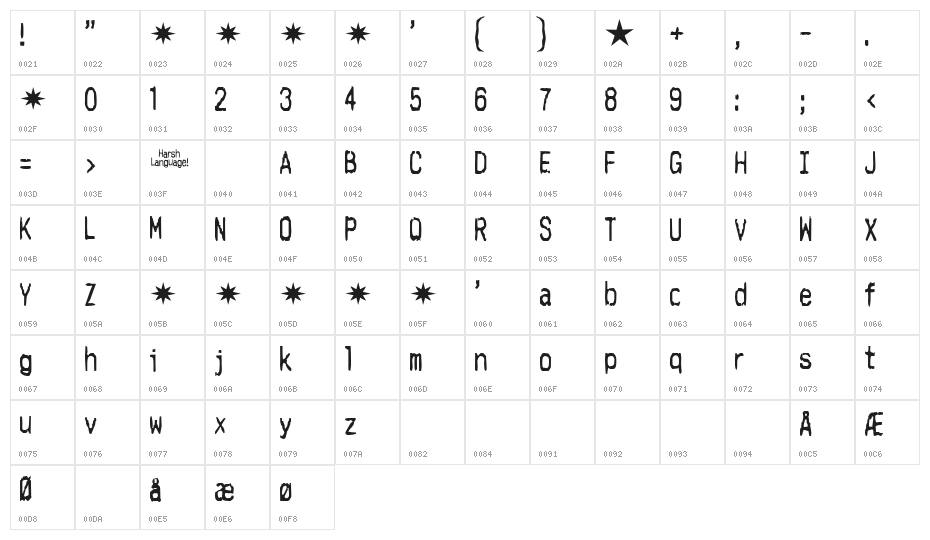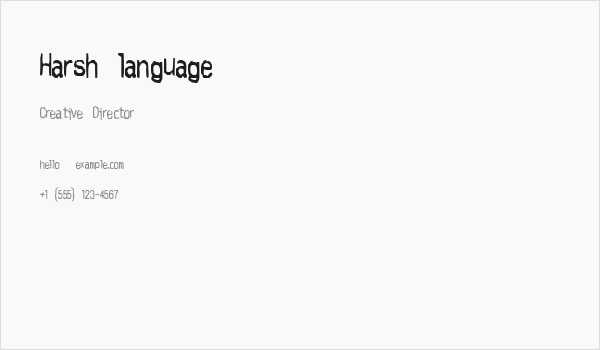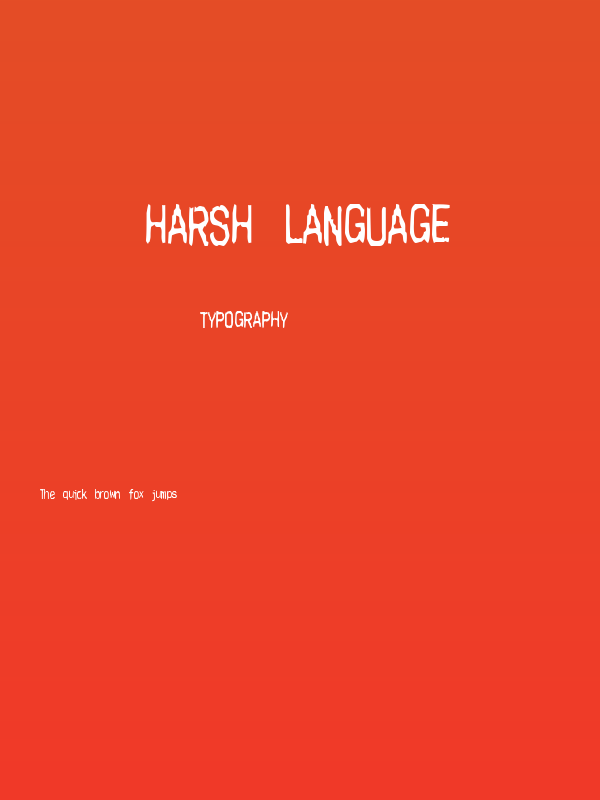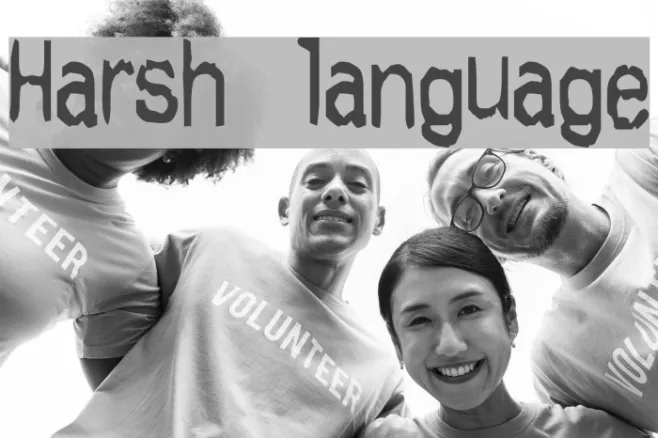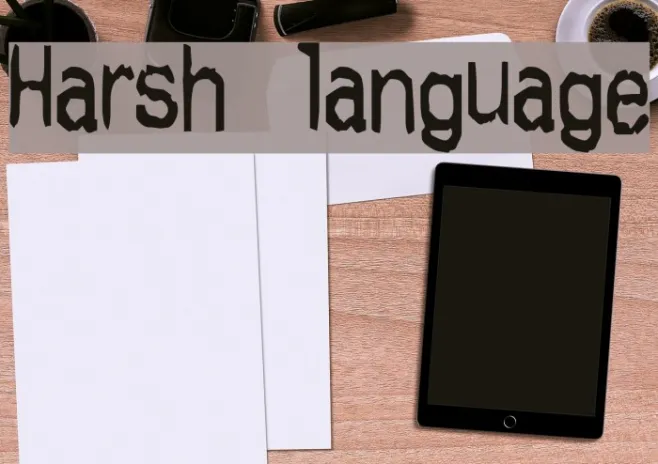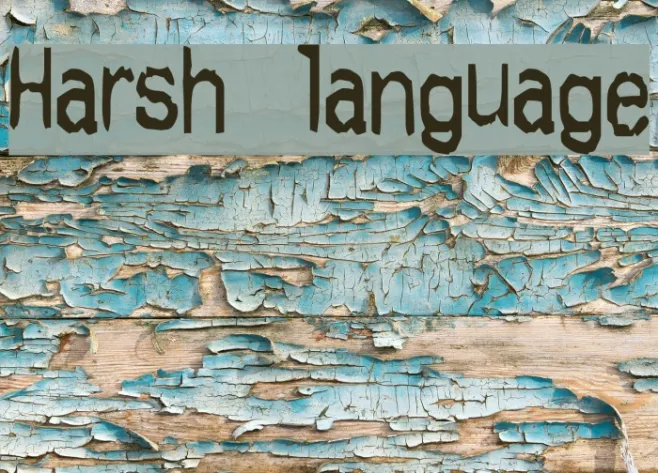
Harsh language Font
Harsh language Description
This font features a rugged and distressed appearance, with uneven edges and a hand-drawn feel. The uppercase and lowercase letters maintain a consistent style, characterized by irregular strokes and a slightly jagged look. The numbers follow the same aesthetic, providing a cohesive appearance across all characters. Special characters, such as punctuation and symbols, are designed to match the overall rough and edgy style. This font is ideal for projects that require a bold and rebellious look, adding a touch of grunge or urban flair to any design.
Fonts by Jacob Fisher - www.pizzadude.dk
| Overall Style | Grunge, Urban |
| Proposed Projects | Ideal for music album covers, posters, streetwear branding, or any project needing a bold, rebellious aesthetic. |